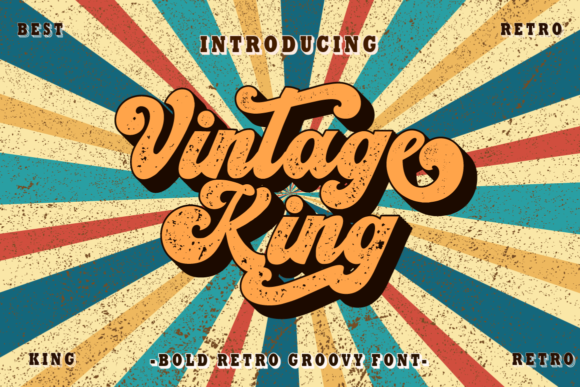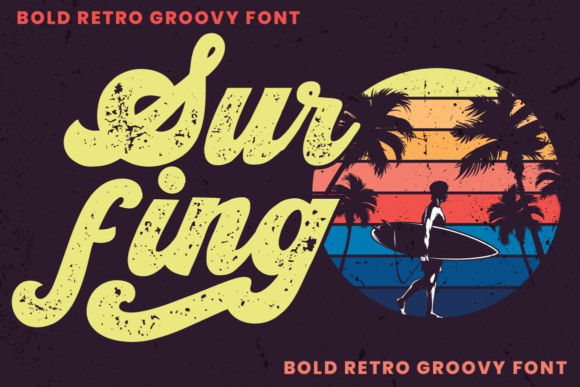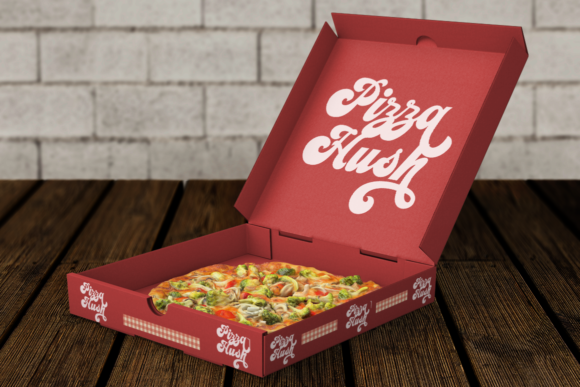
Vintage King Font
Vintage King is a retro and bold display font. This font is PUA encoded which means you can access all of the glyphs and swashes with ease! It would look great on headlines, magazines, logos, branding and so much more!